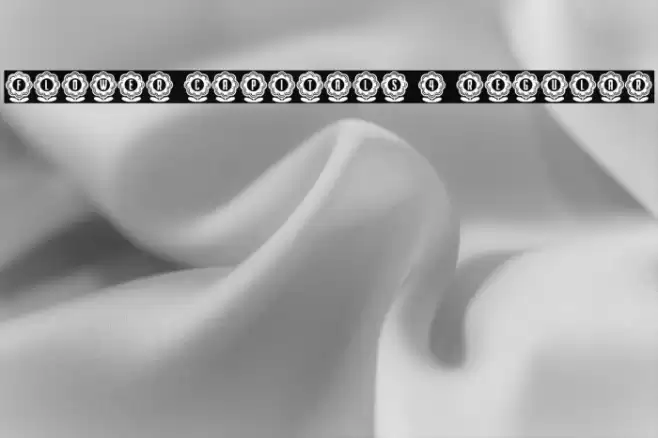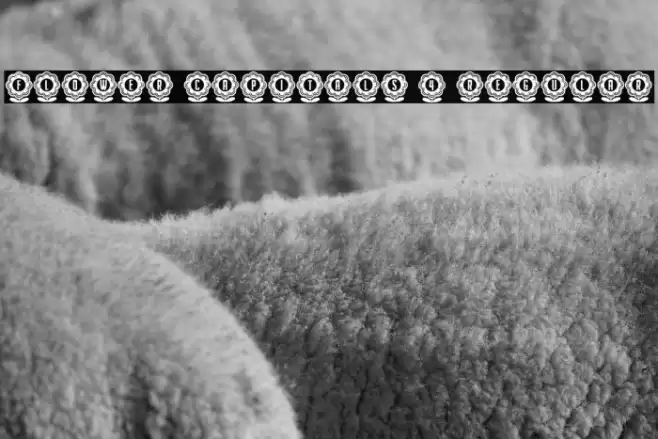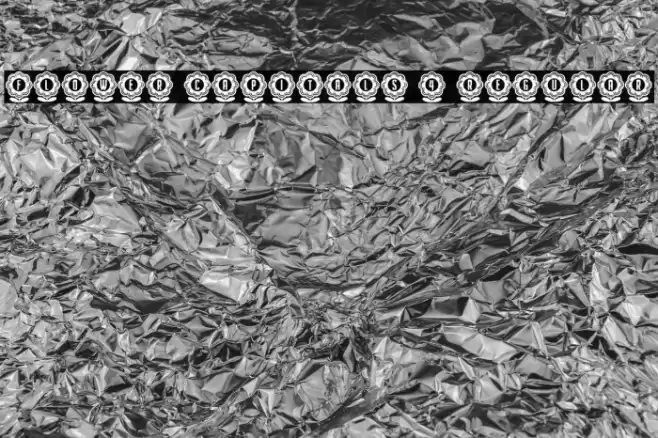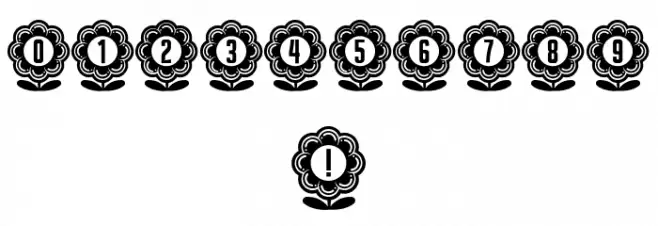
Flower Capitals 4 Regular Font
Flower Capitals 4 Regular Description
This decorative font features characters encased within stylized flower shapes, creating a whimsical and playful aesthetic. Each letter and number is centered within a bold, symmetrical floral design, making it stand out with a unique charm. The font combines a sense of nature with a bold, graphic style, making it ideal for creative and artistic projects. The consistent use of floral motifs around each character gives it a cohesive and thematic appearance, perfect for designs that require a touch of elegance and creativity.
A decorative font with characters encased in stylized flower shapes from Uncategorized fonts.
- Proposed Projects: Ideal for greeting cards, invitations, children's books, and creative branding projects.
- Use Case: Logos, Headlines, Artistic designs